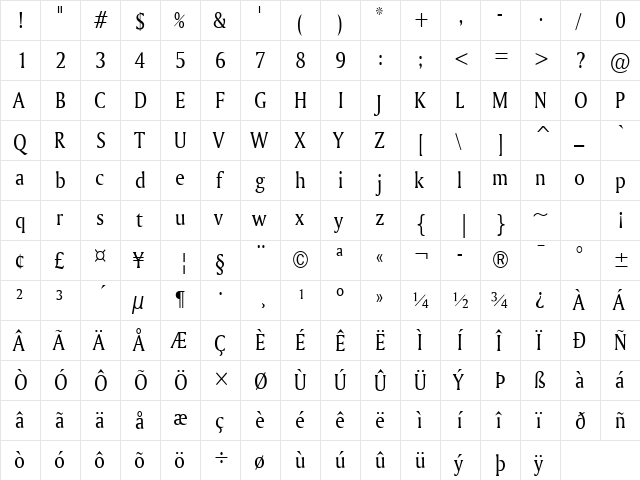
Ameretto Condensed Normal
Design Context for Ameretto Condensed Typeface
Ameretto Condensed takes a measured approach to typography — its balanced proportions and neutral character make it a reliable workhorse for both digital and print work. The condensed width makes it efficient for tight spaces without sacrificing legibility.